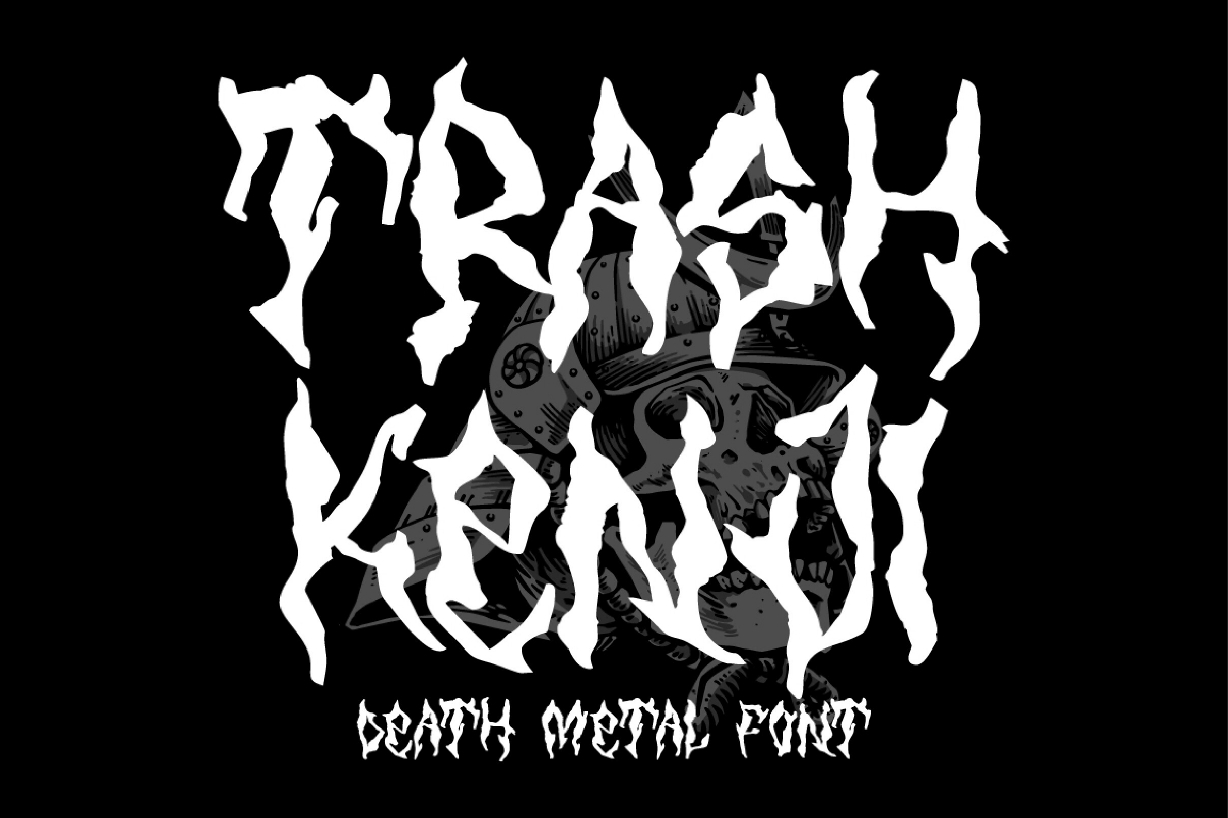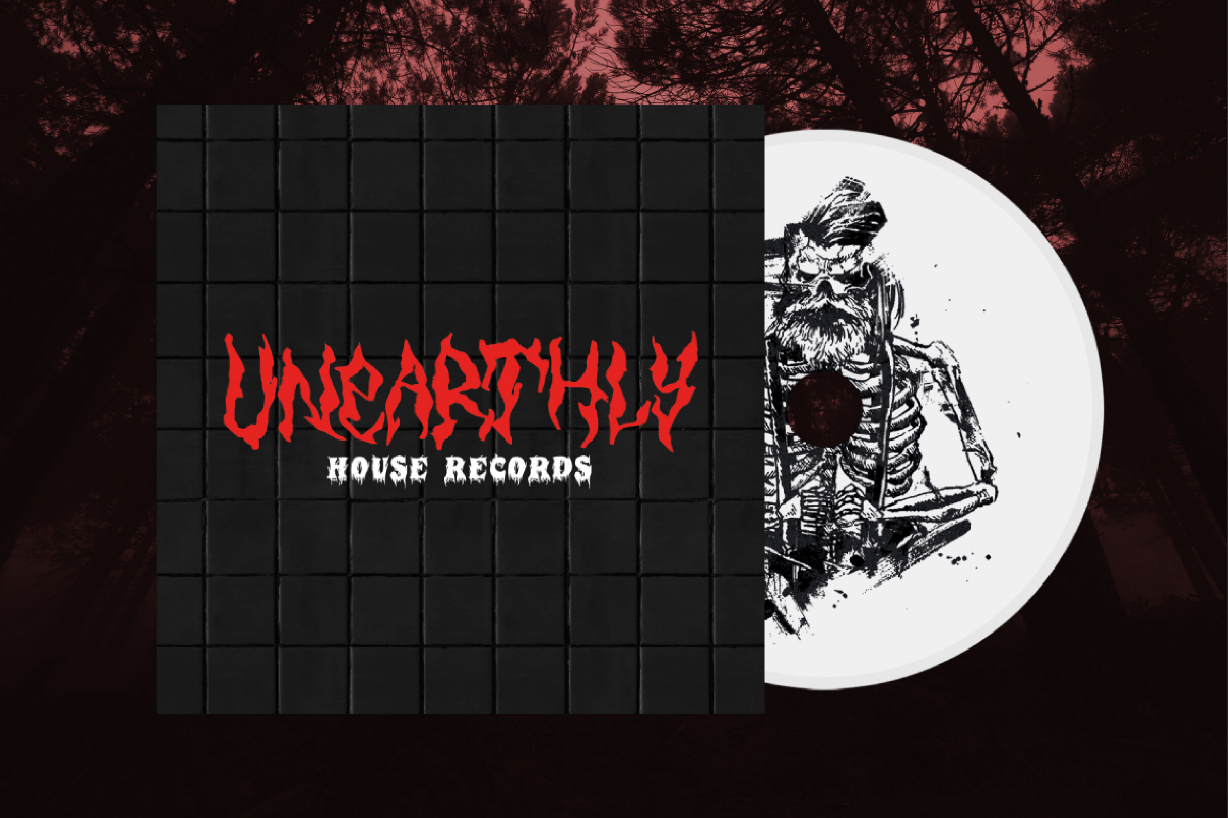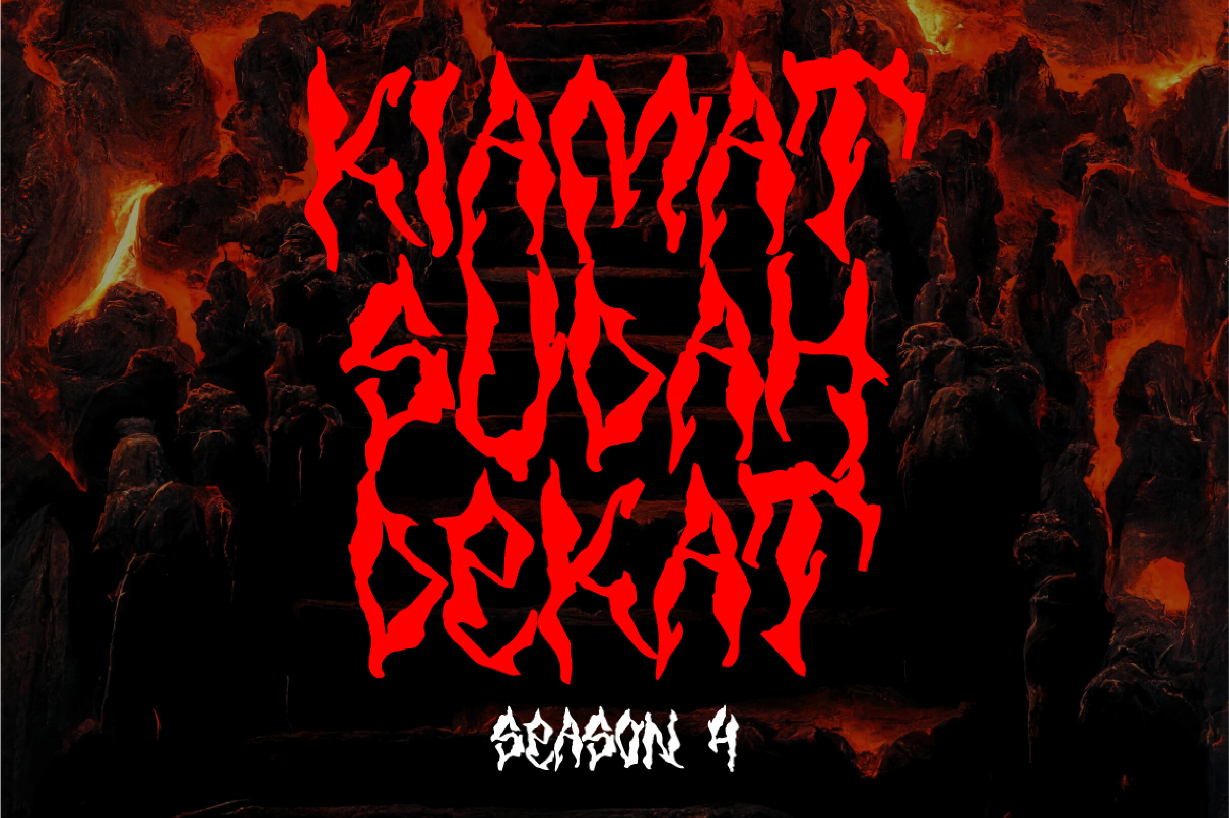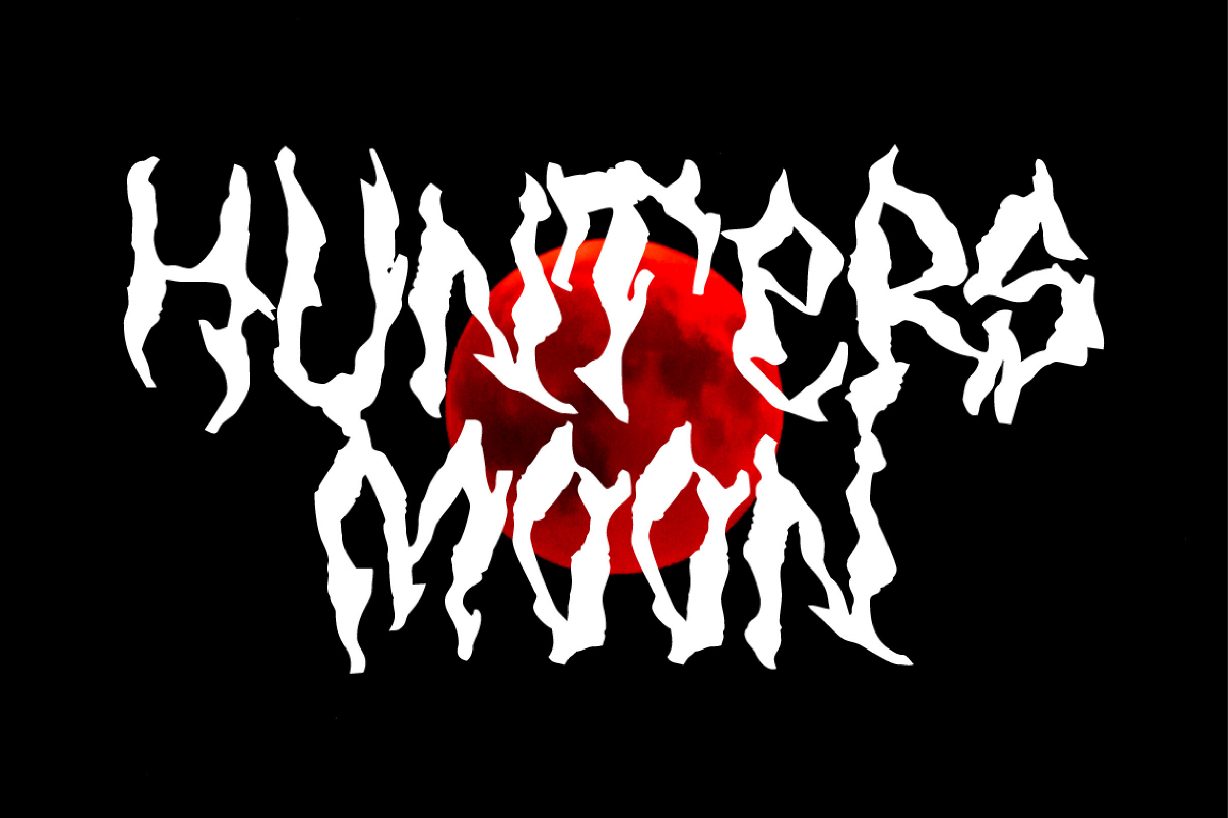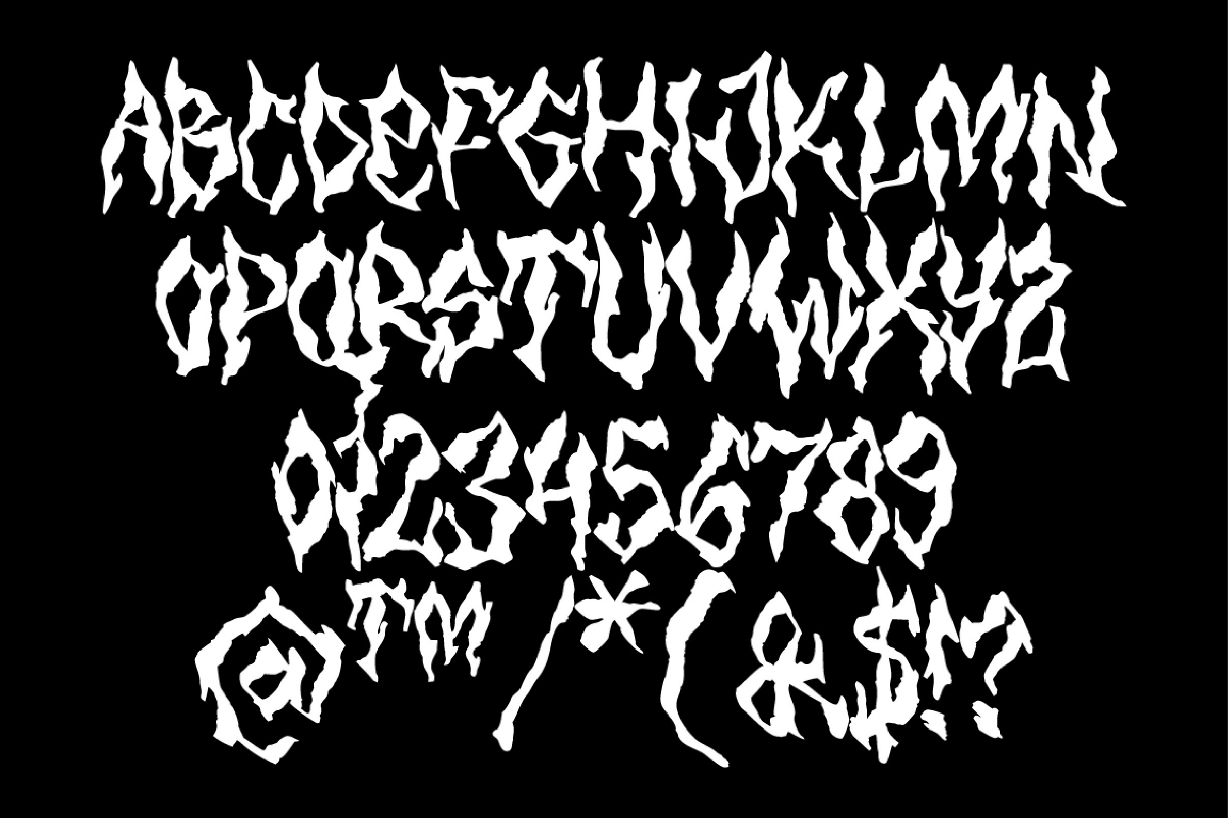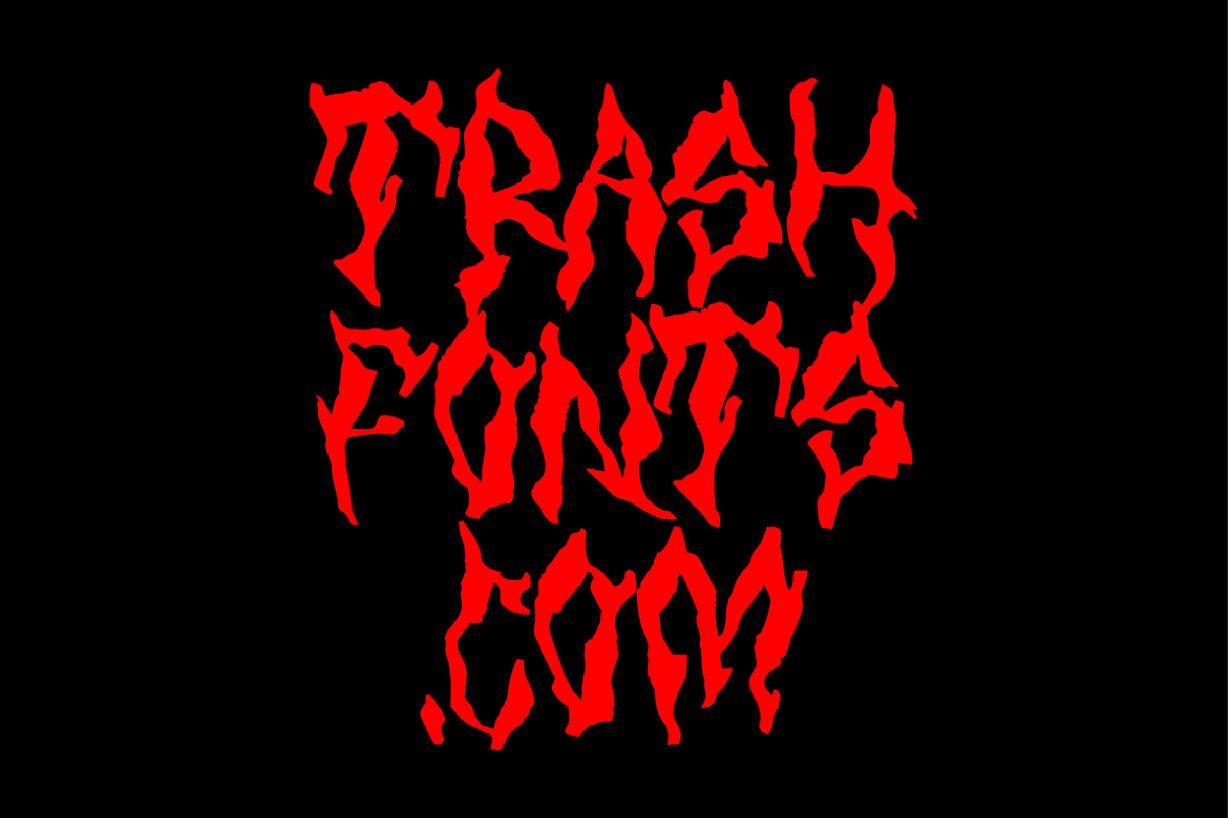
Trash Kenji Font
About Trash Kenji Font
Trash Kenji – Your Death Metal Font: Channel fierce power into your designs. Ideal for merchandise, logos, posters, and beyond. Elevate your impact with Trash Kenji.